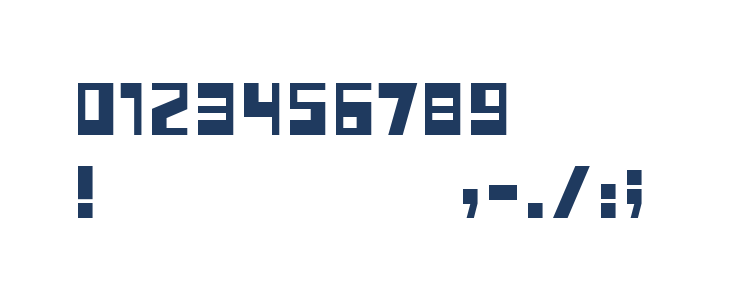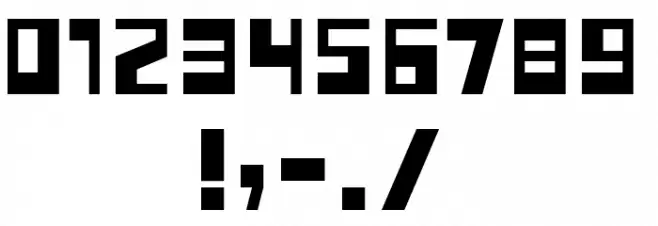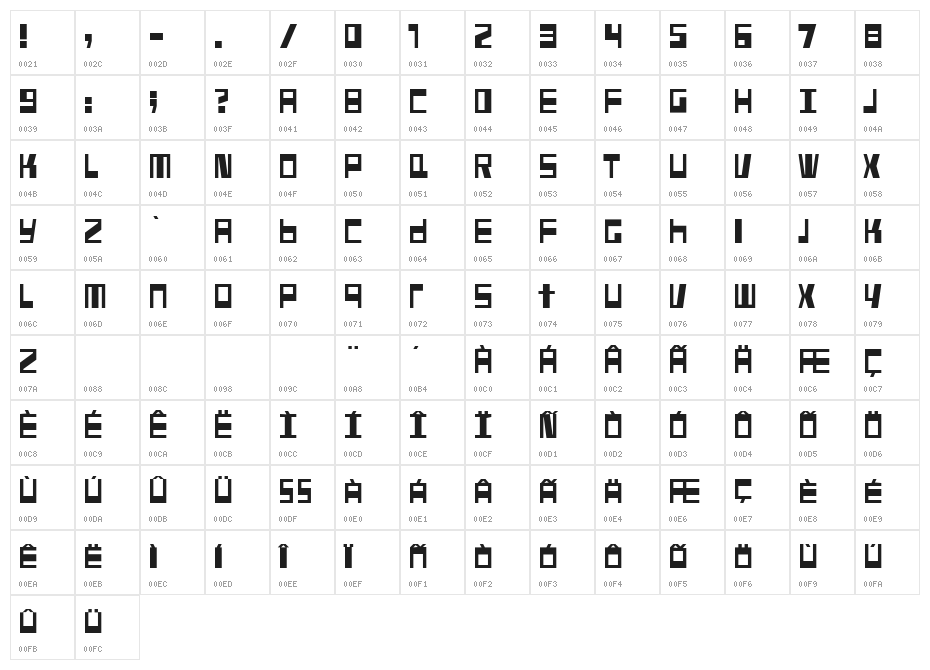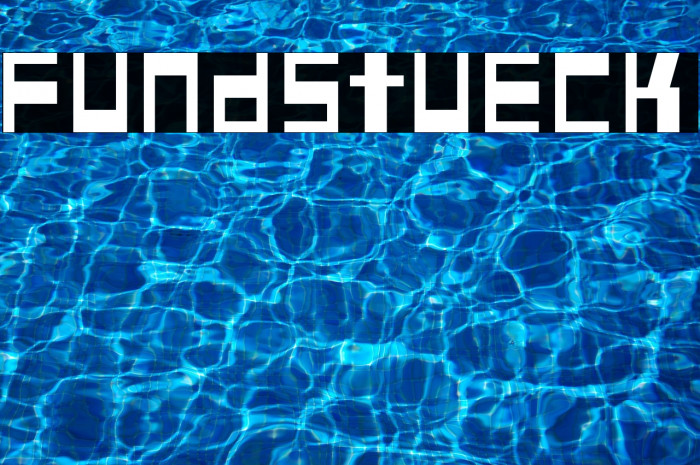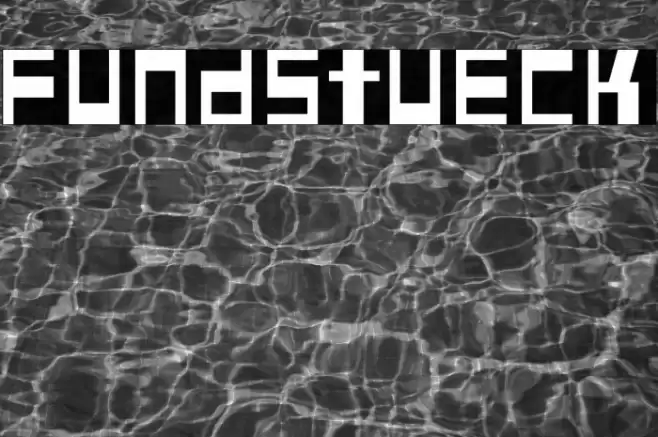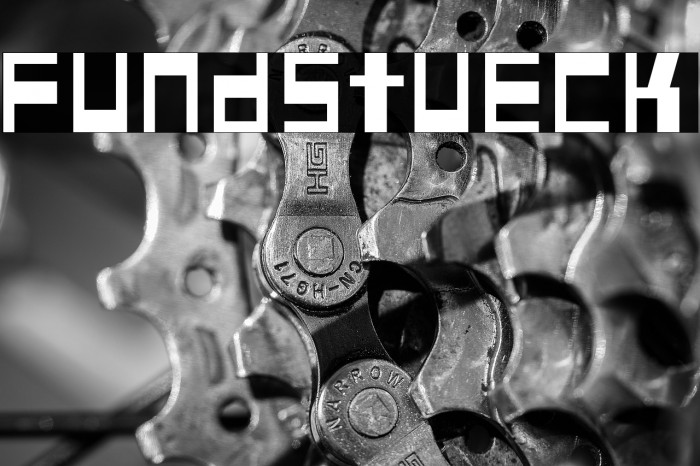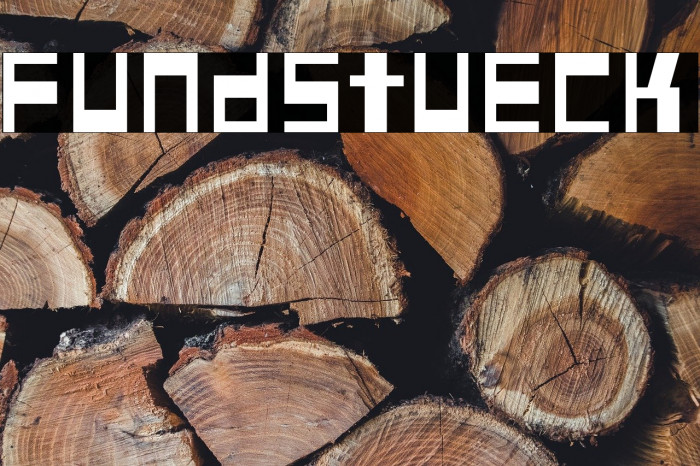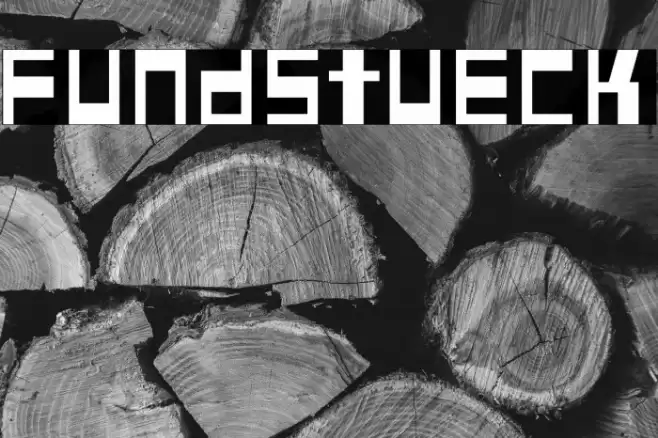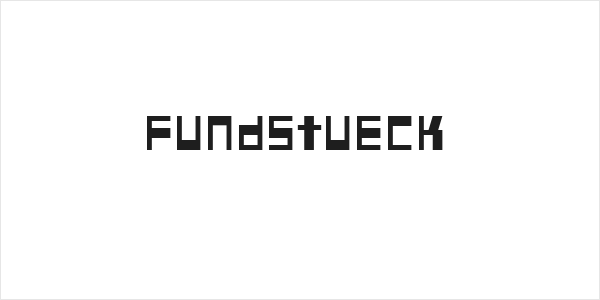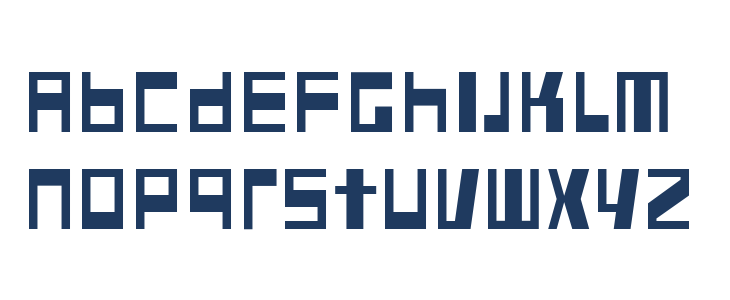
Fundstueck Font
Fundstueck Description
This font features a bold, geometric design with a strong emphasis on angular shapes and straight lines. The characters are uniformly structured, giving a sense of stability and modernity. The uppercase and lowercase letters maintain a consistent height, creating a cohesive look. Numbers and special characters follow the same design principles, ensuring a harmonious appearance across all elements. The font's blocky nature and sharp edges make it stand out, ideal for projects that require a bold statement. Its unique style is both futuristic and retro, appealing to a wide range of design aesthetics.